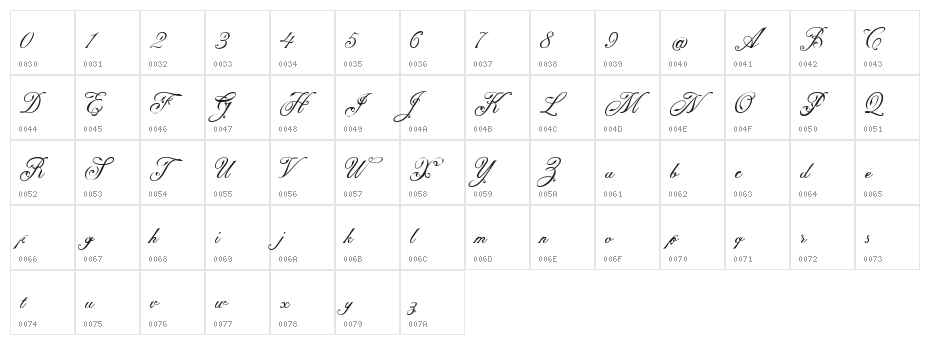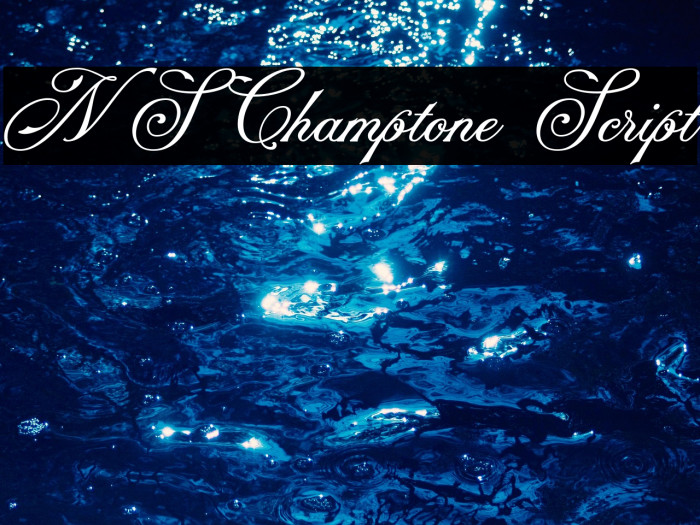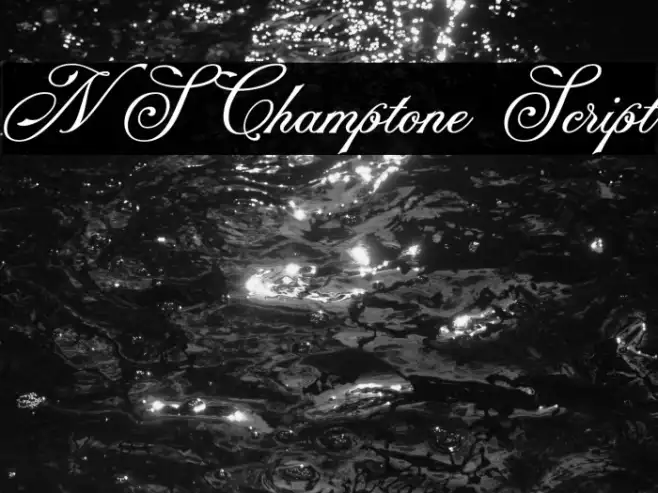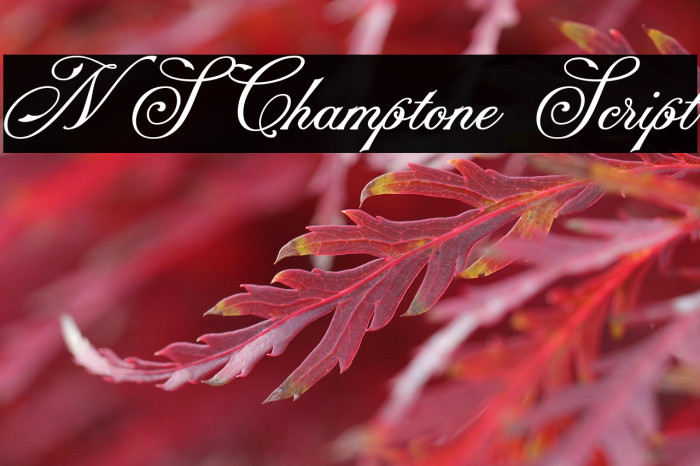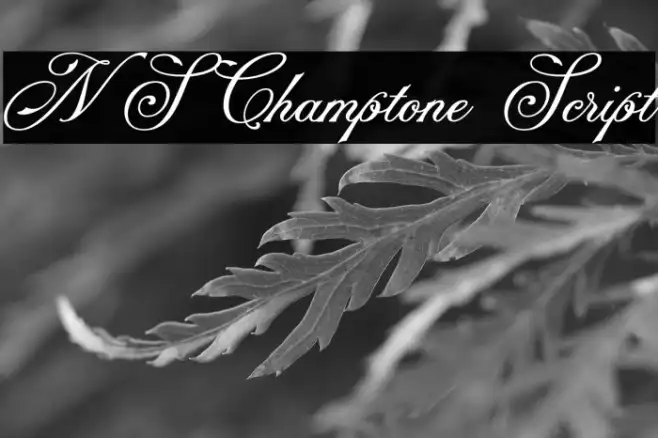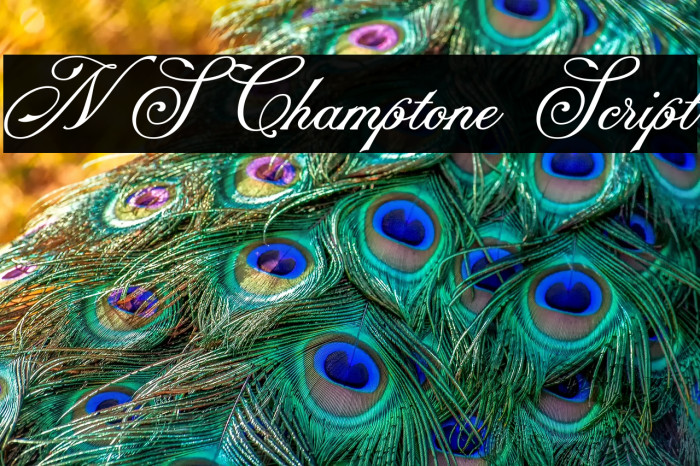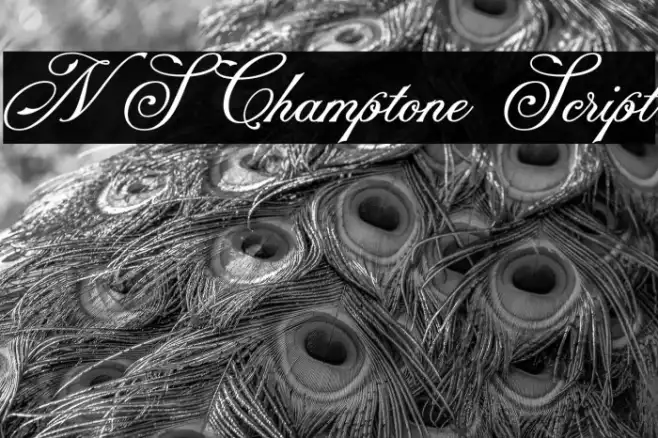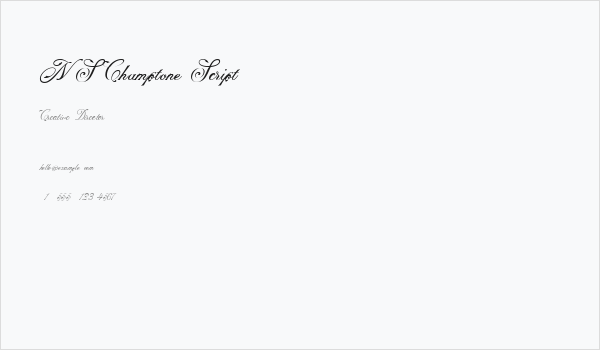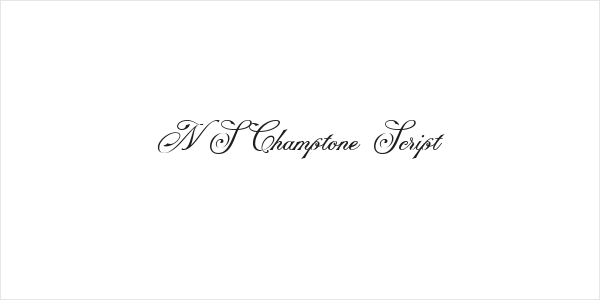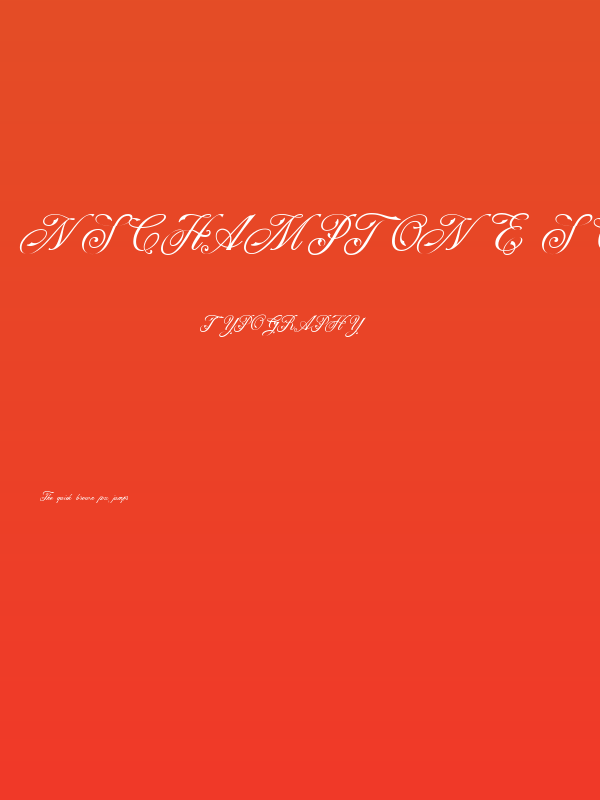
NS Champtone Script Font
NS Champtone Script Description
This elegant script font features a flowing, cursive style with intricate swashes and flourishes. The characters are interconnected, creating a seamless and sophisticated appearance. The uppercase letters are particularly ornate, with elaborate loops and curves that add a touch of luxury and refinement. The lowercase letters maintain a consistent style, complementing the uppercase with their graceful lines. The numerals are equally decorative, fitting well with the overall aesthetic. This font exudes a sense of elegance and is perfect for projects that require a touch of class and sophistication.
Overall StyleElegant
Use CaseLogos, Invitations, Decorative text
Proposed ProjectsIdeal for wedding invitations, luxury branding, elegant stationery, and high-end product packaging.